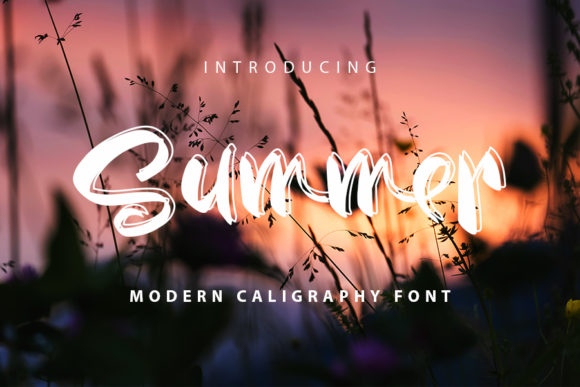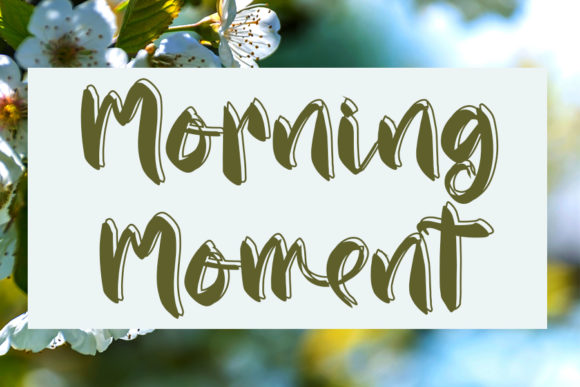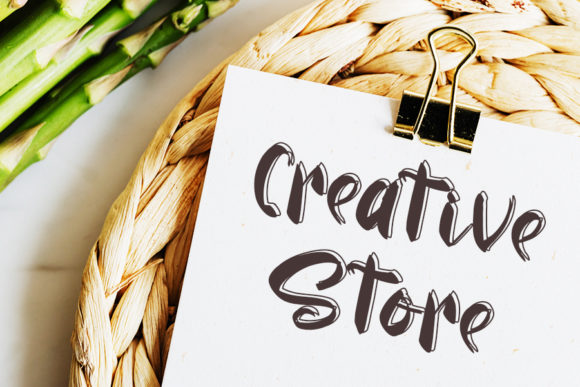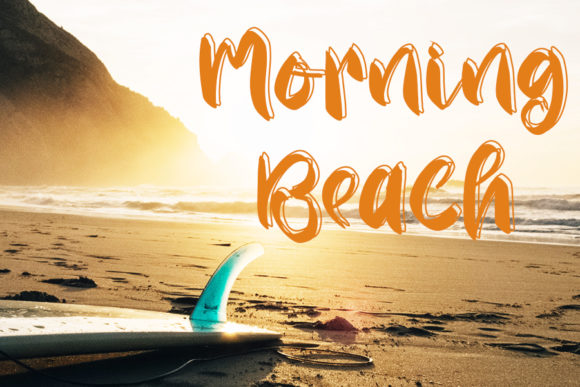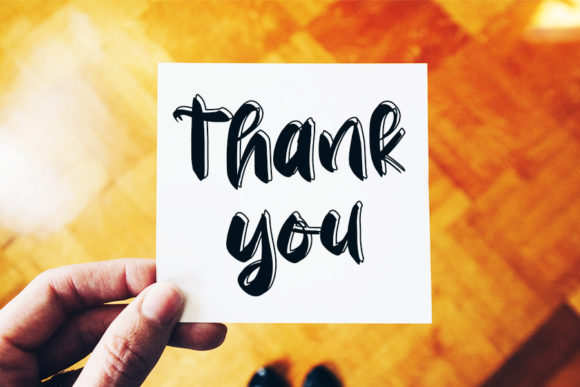
Summer Font
About Summer Font
Summer is a friendly handwritten font. Add this chunky lettered font to your designs and notice how it makes them come alive!